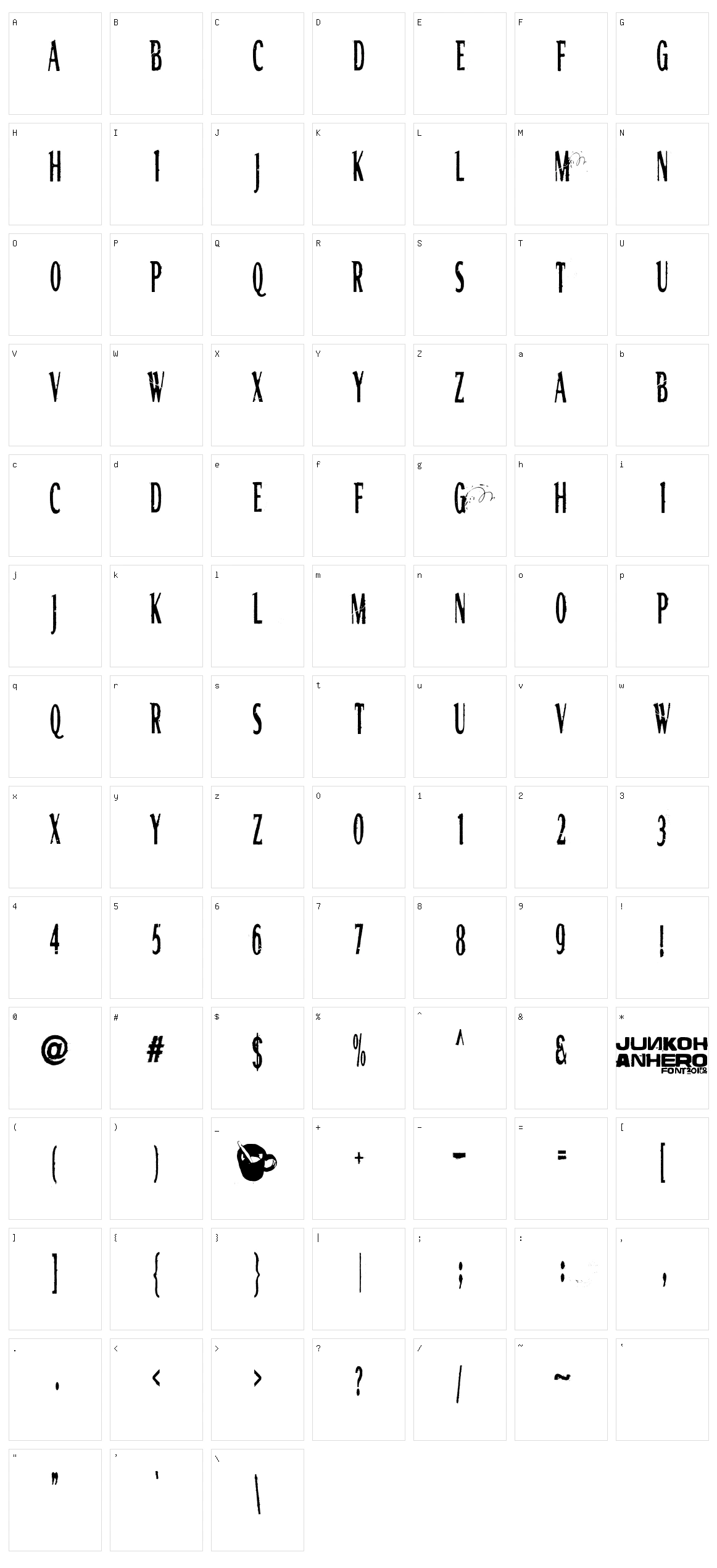
The free font RGMB 6044 Str is carefully designed by junkohanhero, showcasing a thoughtful balance of creativity and usability and falls under the Eroded font style. When you download the ZIP file, it contains only 157.46 KB of font files, making it lightweight and quick to download. Please review the license details below to understand permitted usage and distribution rights. If license information is not available, we recommend using this font for personal projects only or contacting the author directly for commercial usage permissions.